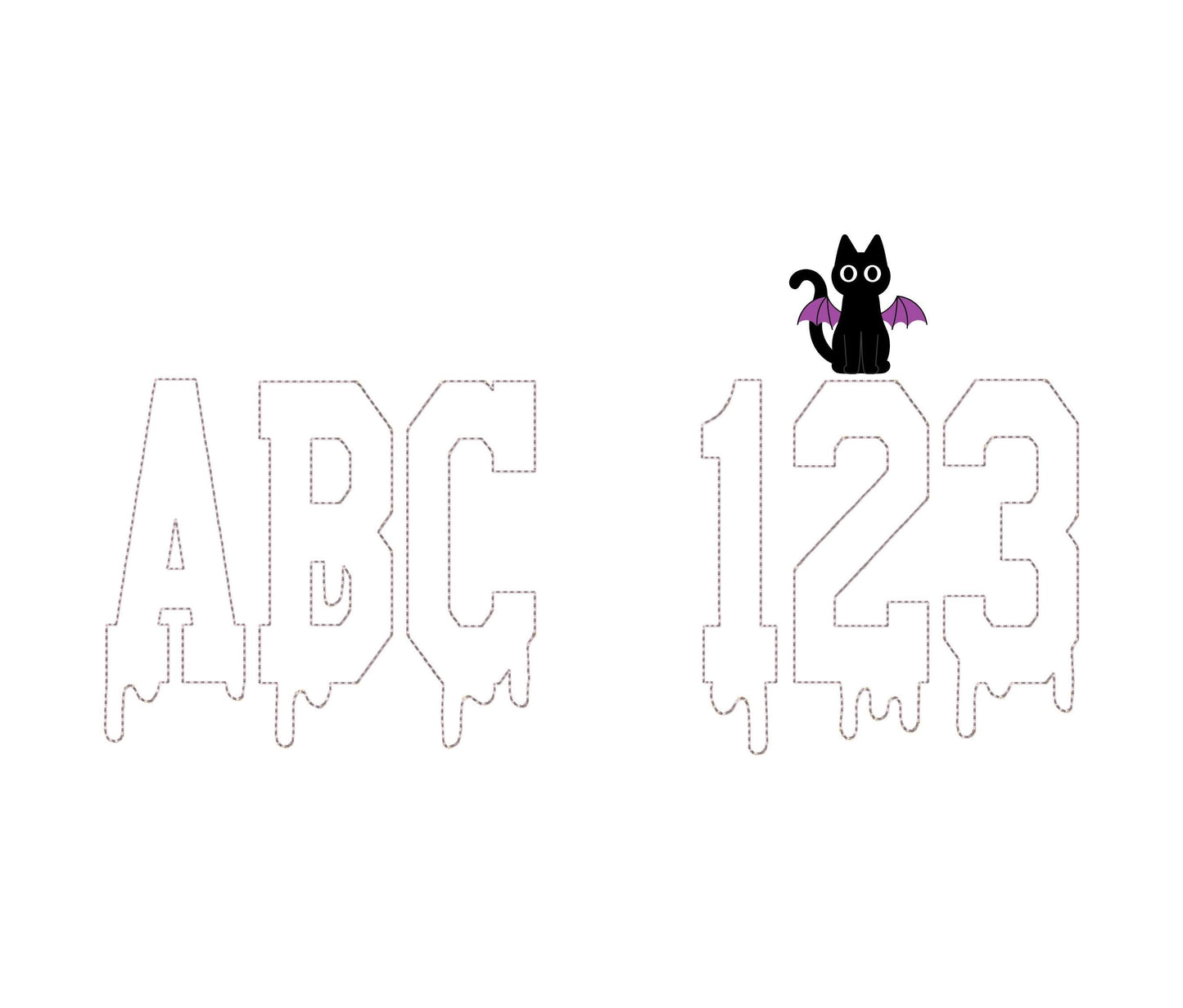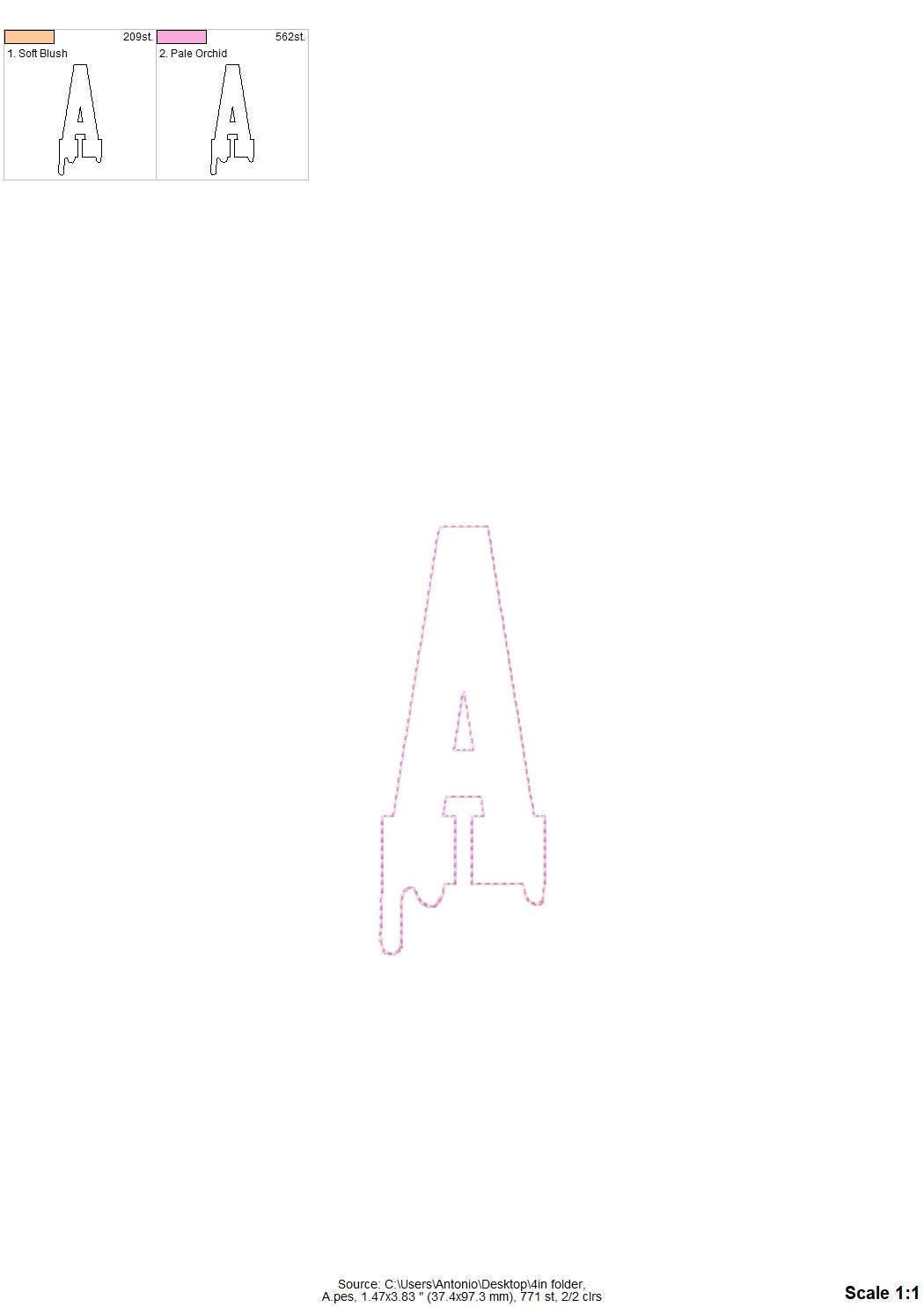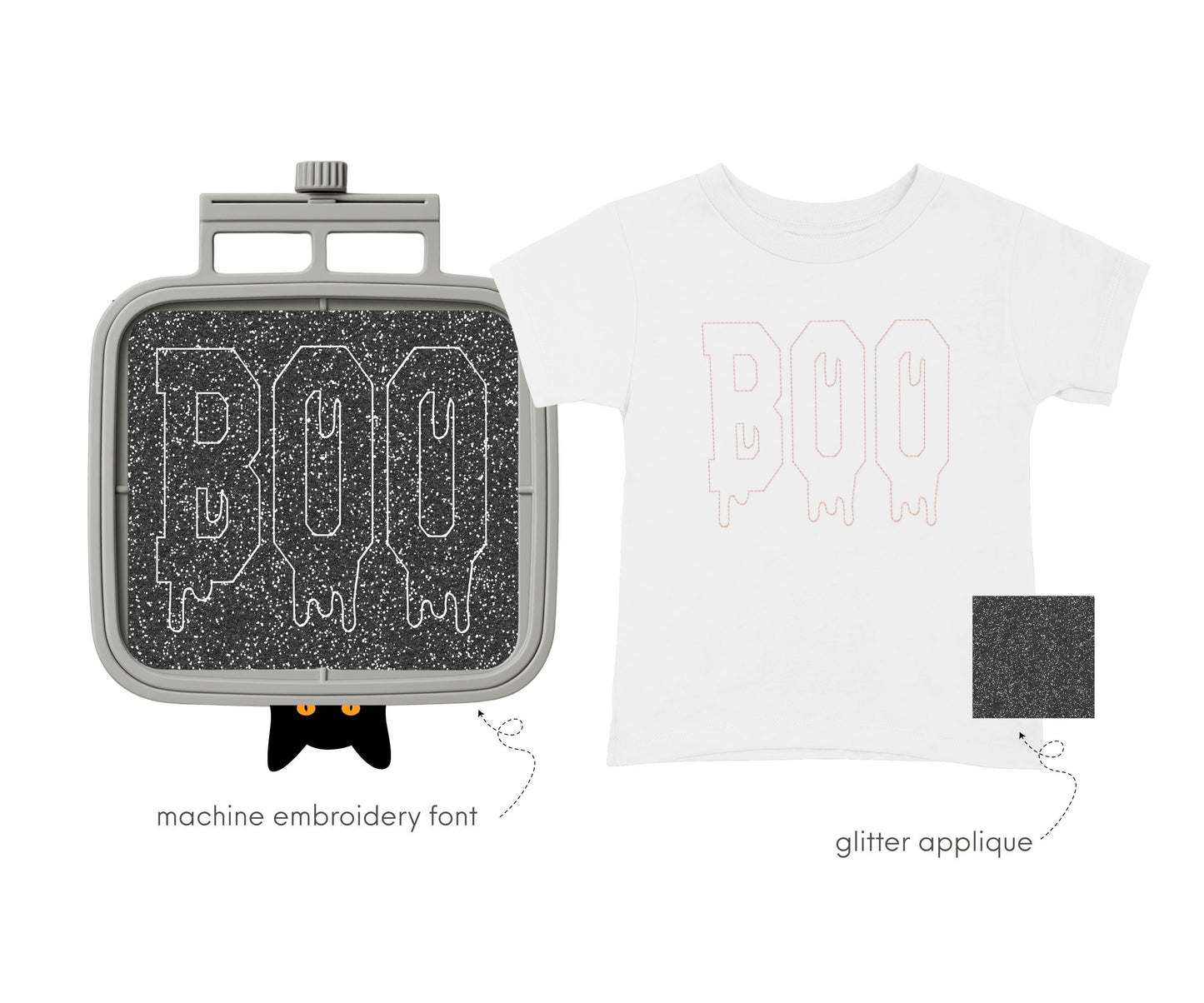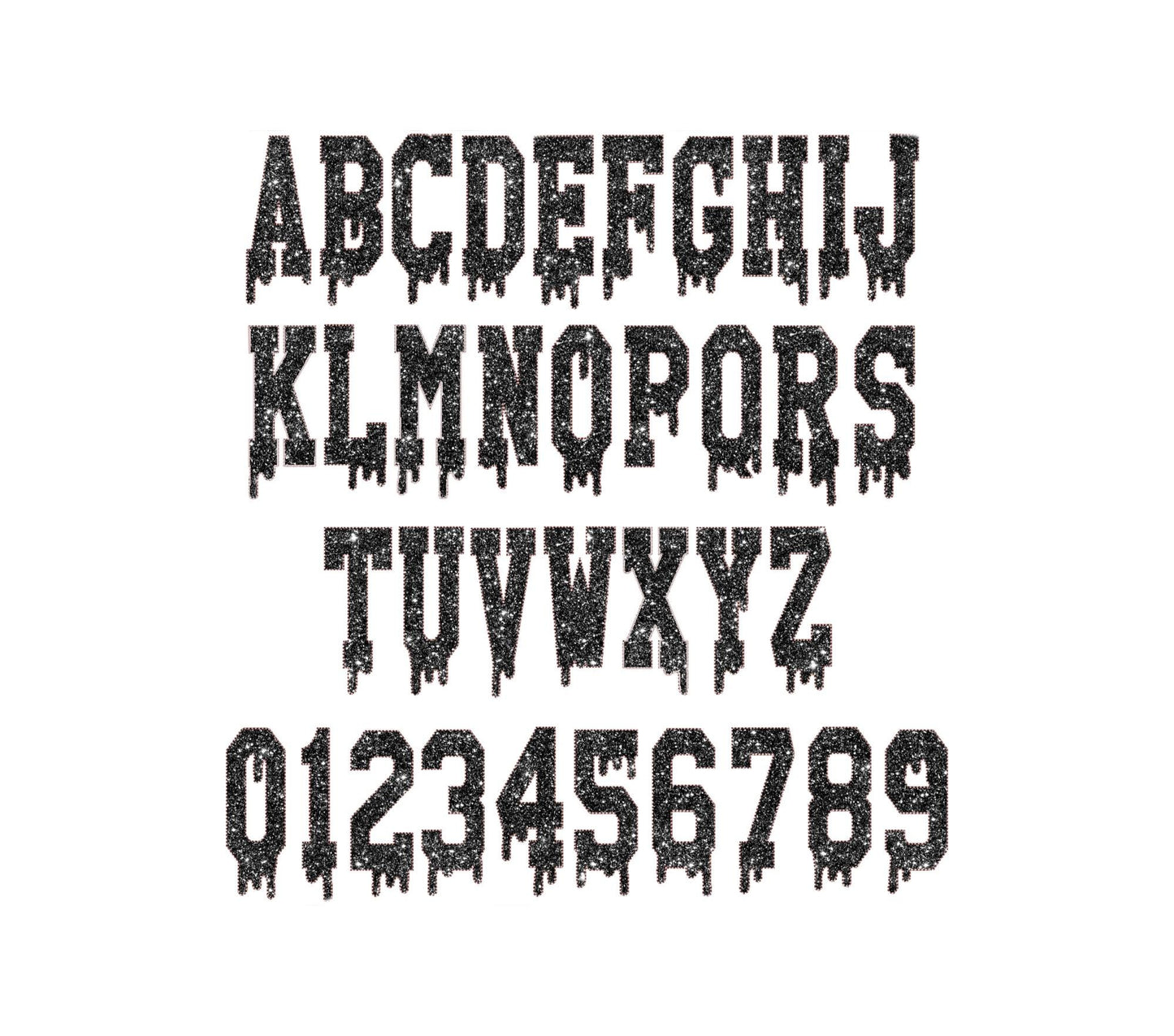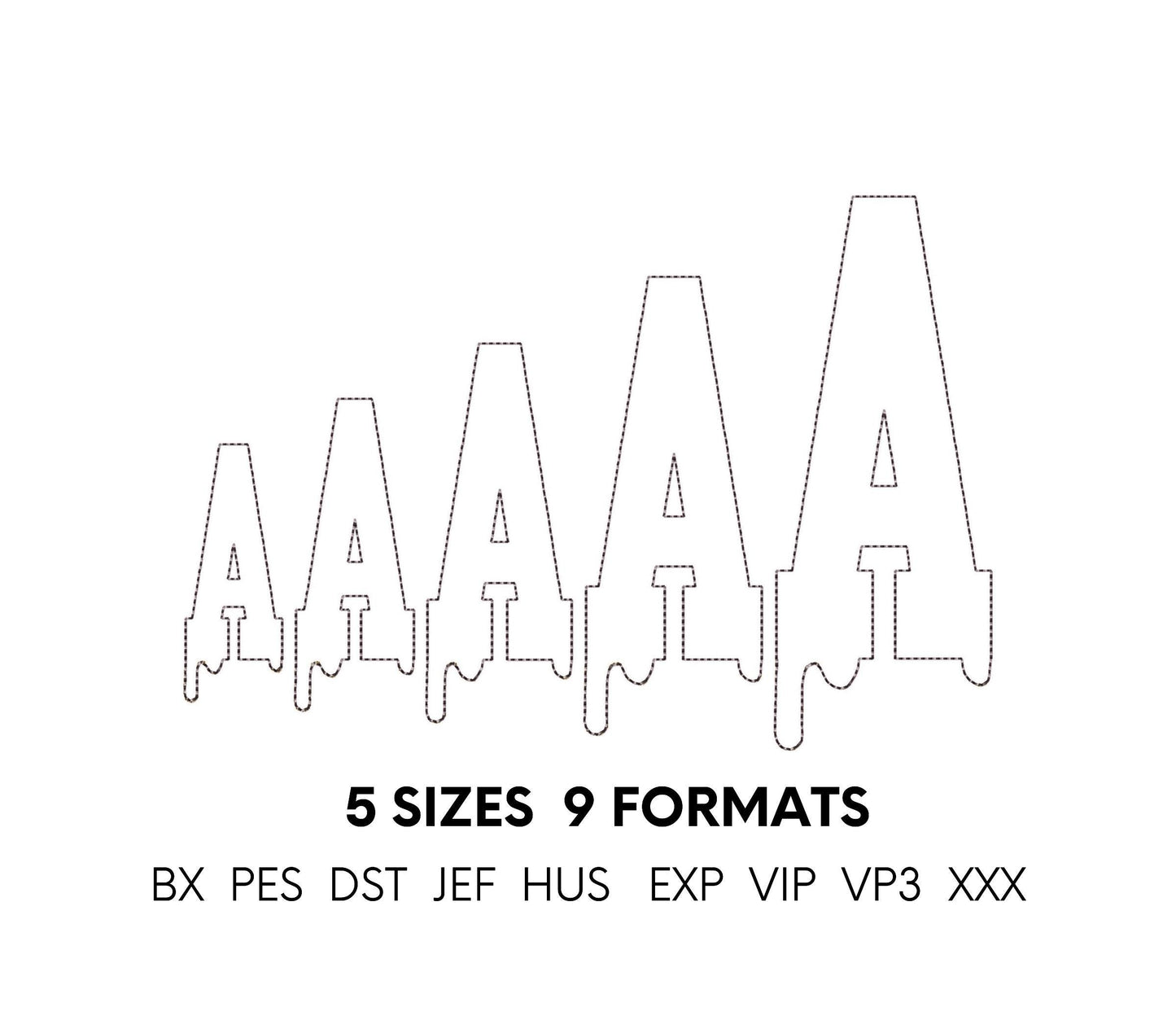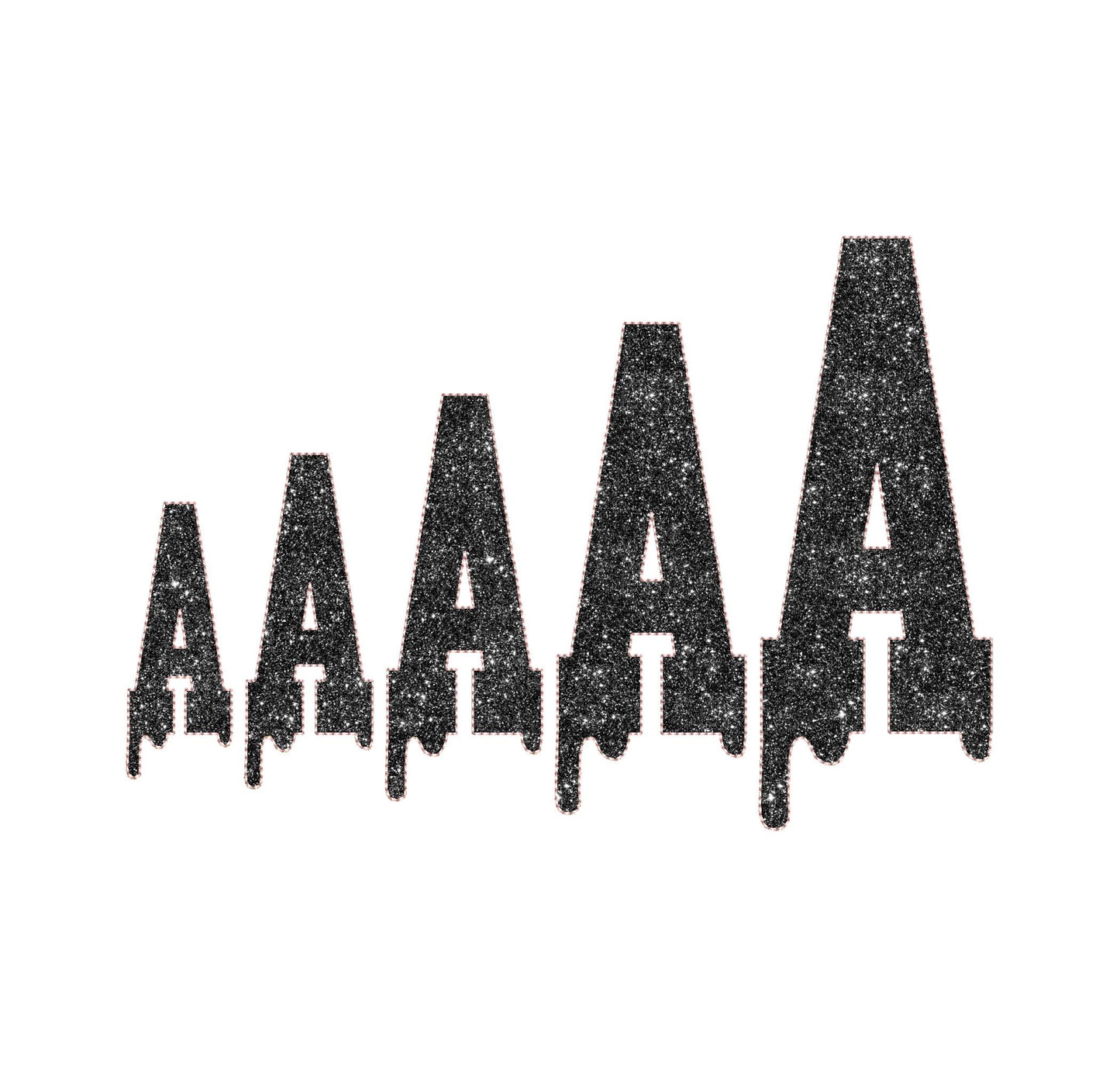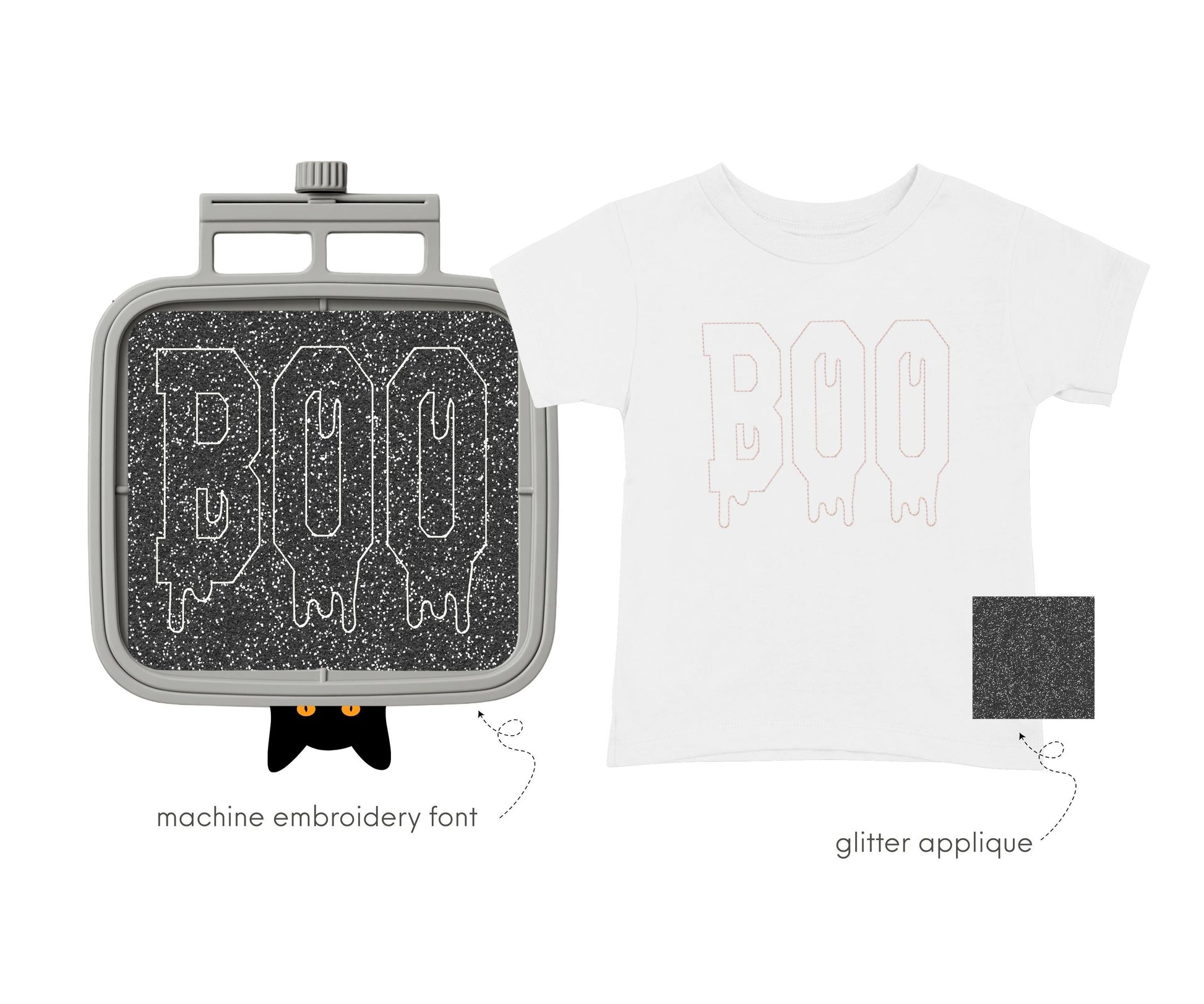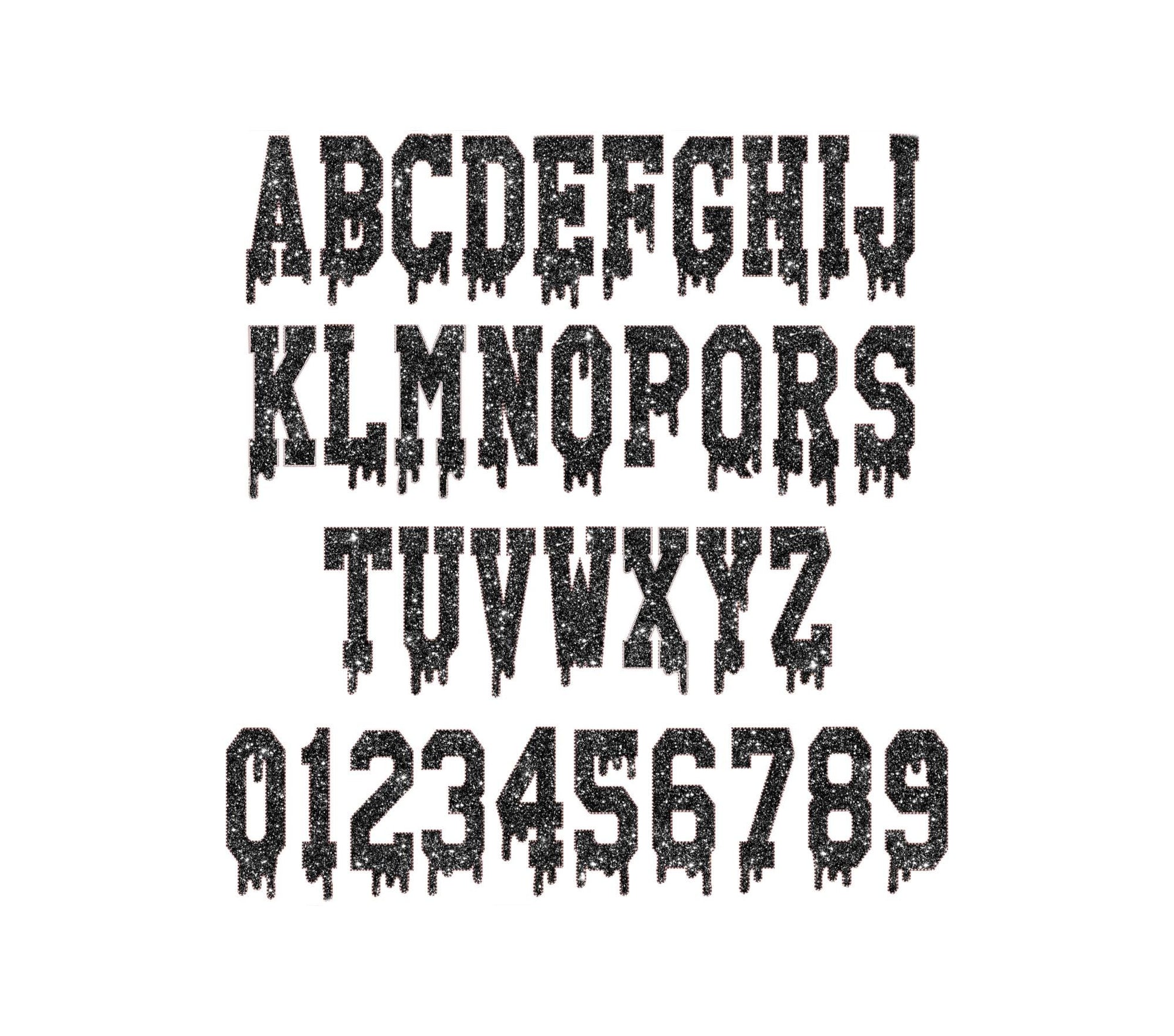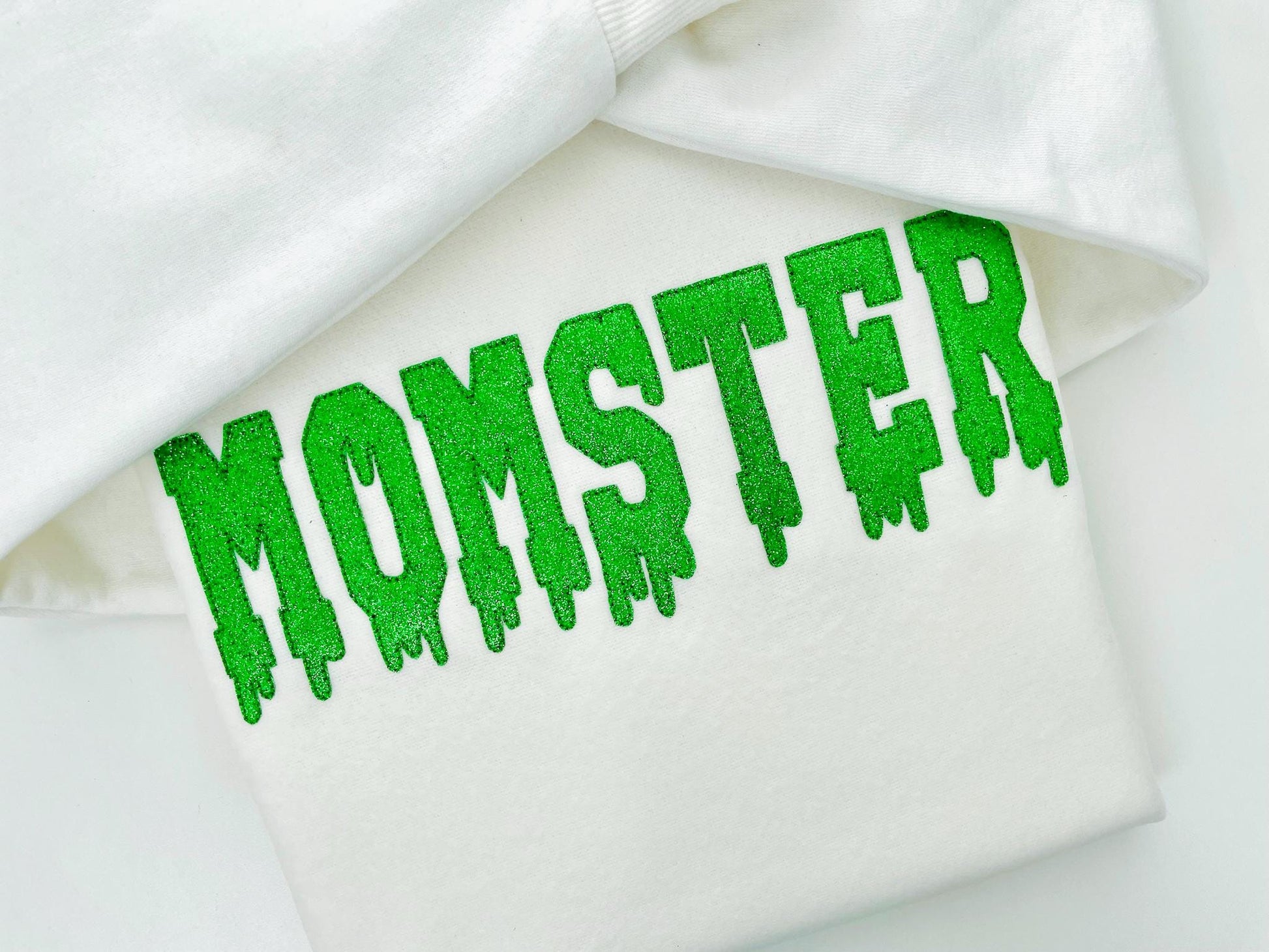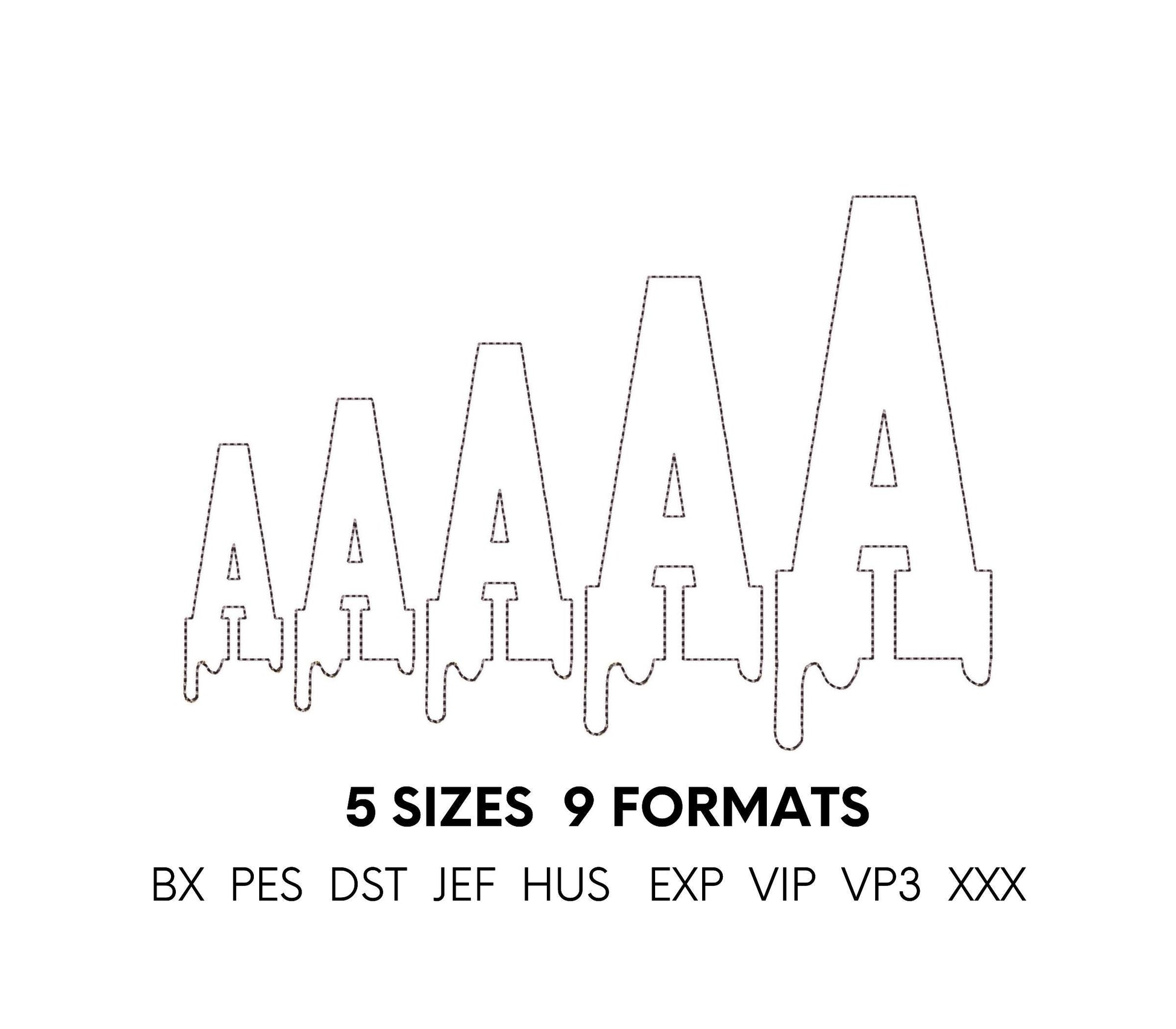
Or click to open the linkA melted varsity block font for glitter heat transfer vinyl applique. Quick and spooky for Halloween shirts, treat bags and names.